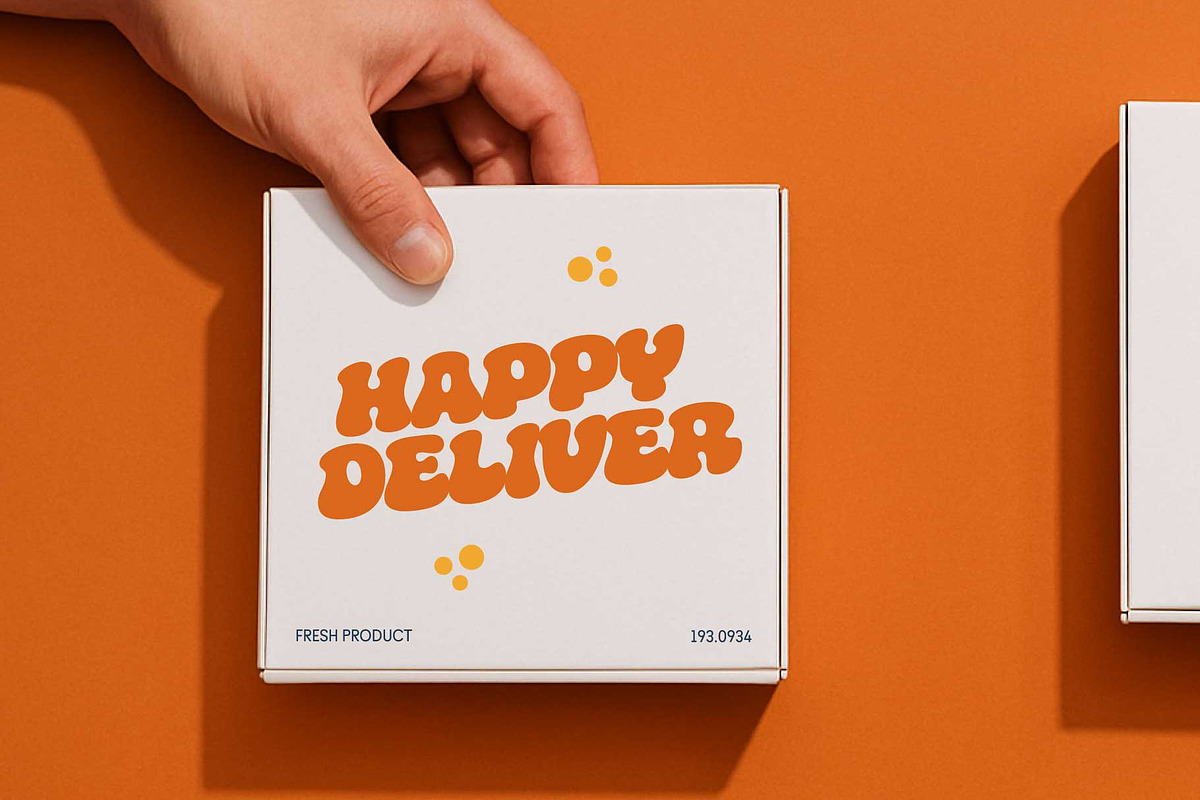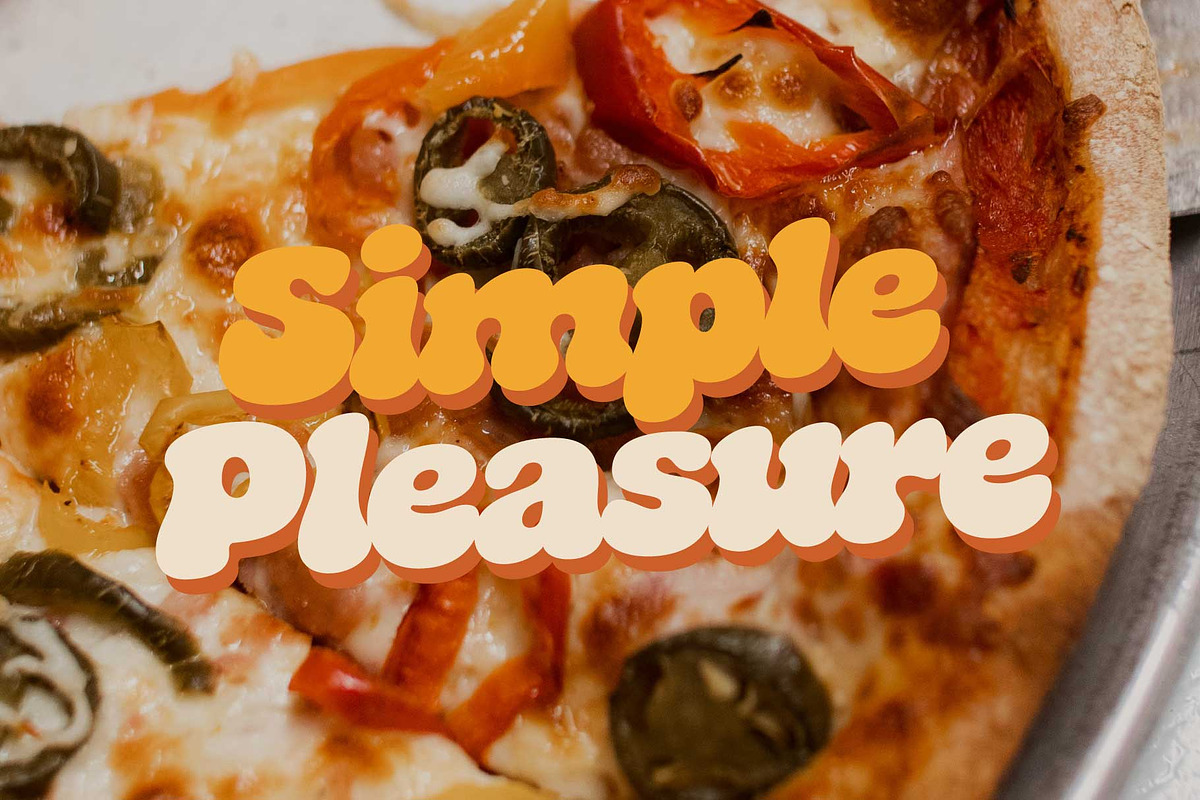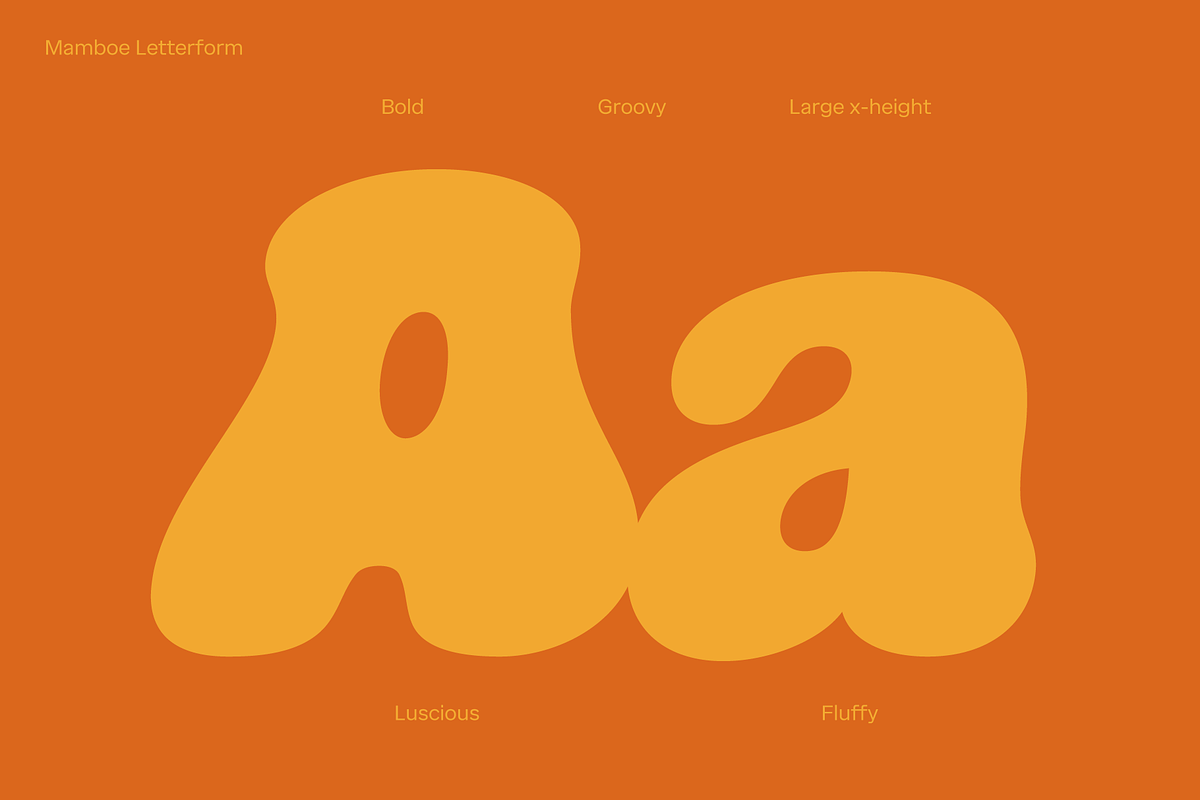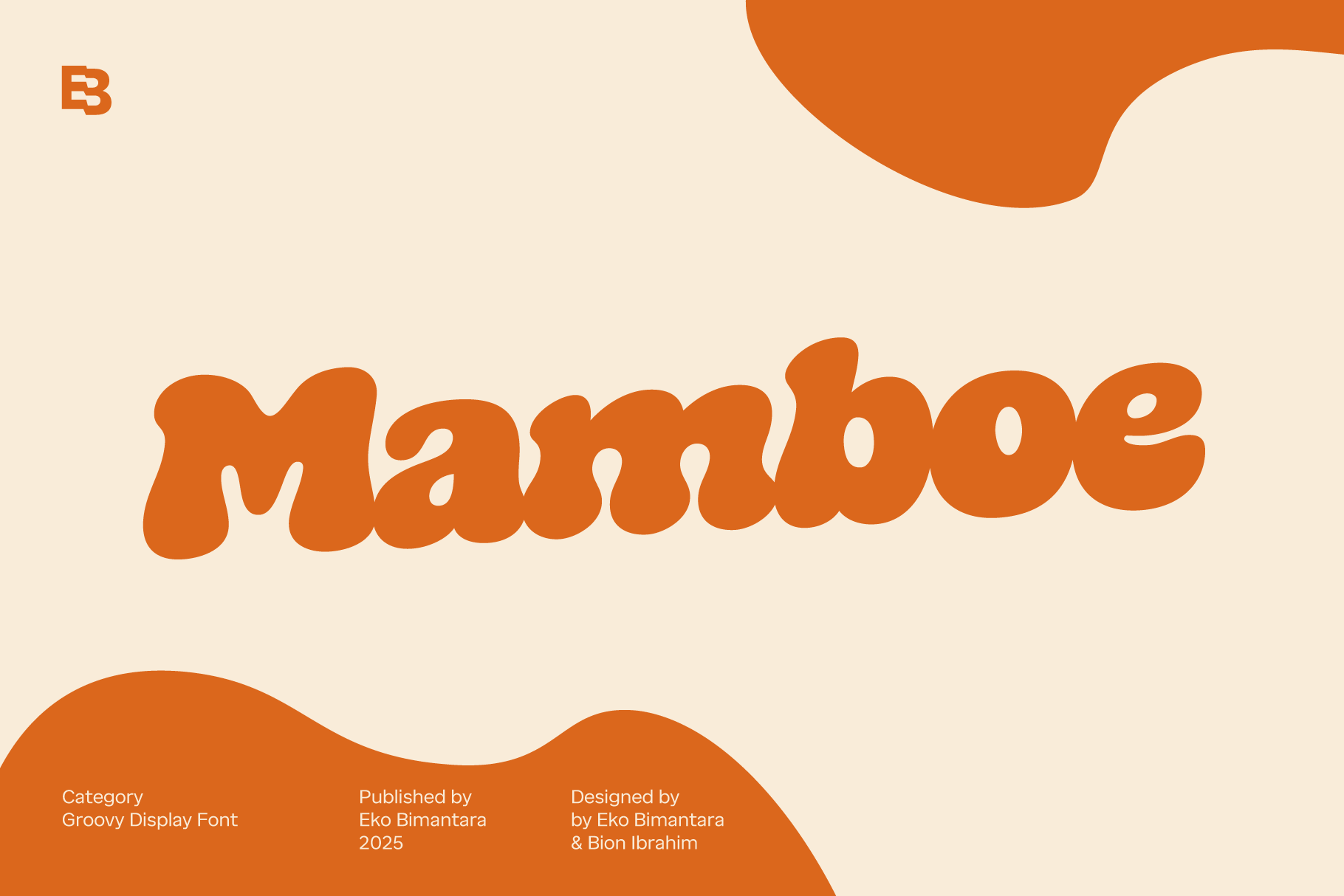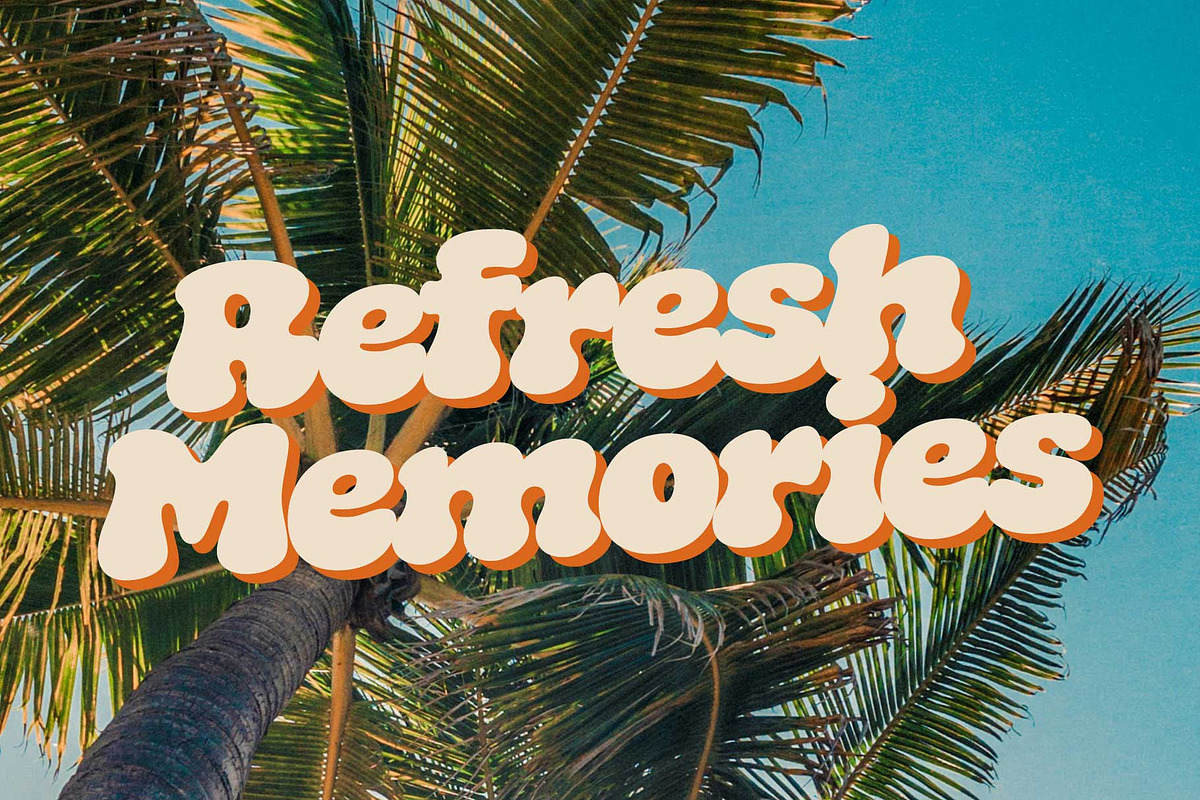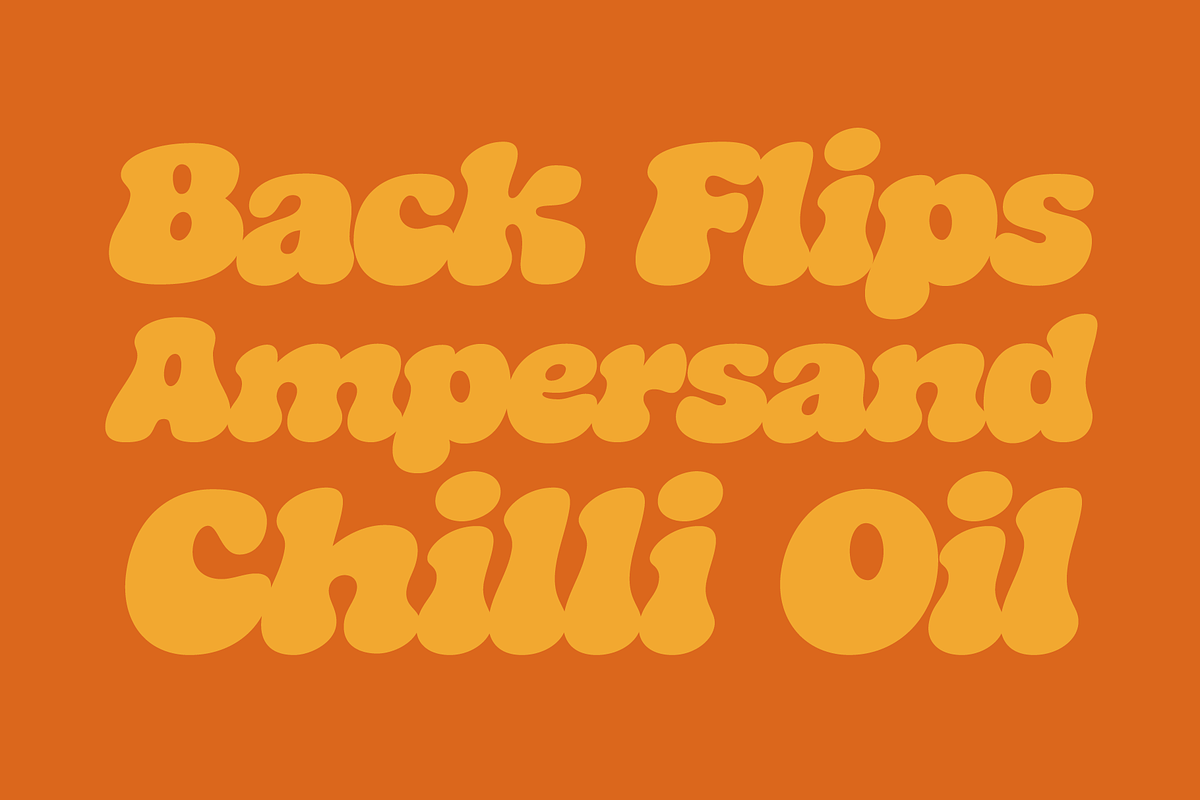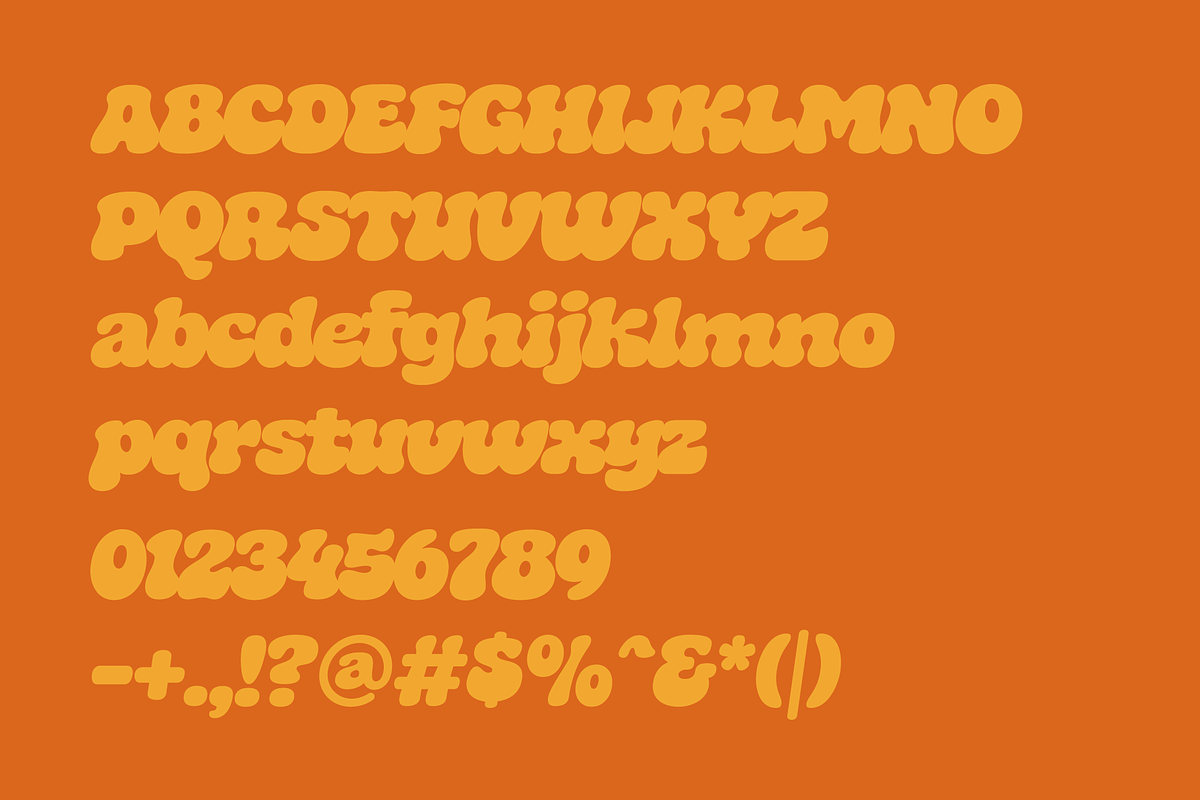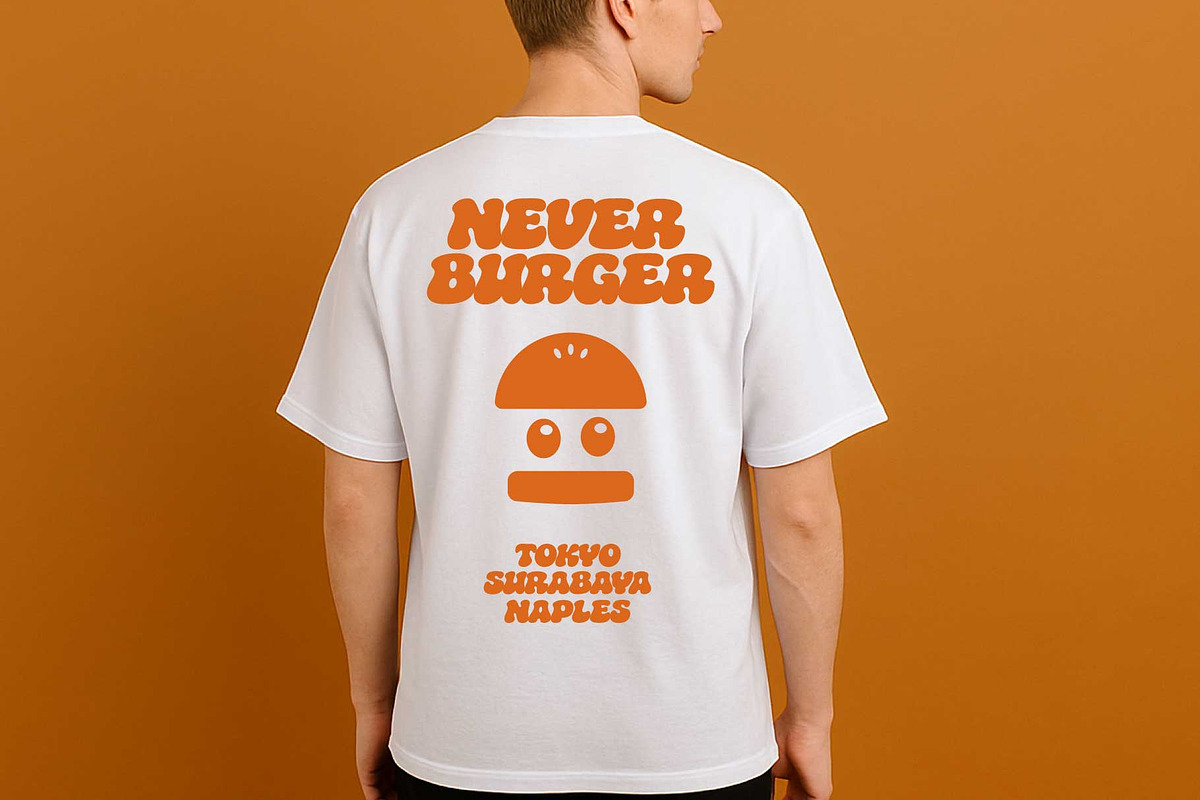
Mamboe; Bold 70s Display Font
Mamboe is a bold retro font that brings back the groovy spirit of the 70’s. With its playful curves and confident weight, this font radiates personality and charm, making it perfect for eye-catching branding, standout logos, striking headlines, and vibrant food & beverage designs. Whether you’re aiming for nostalgic flair or a modern twist on vintage style, Mamboe adds a lively and unforgettable touch to your creative projects.